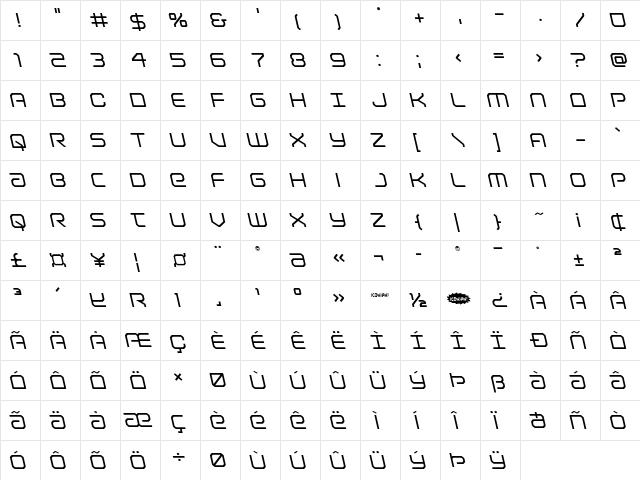
Light Brigade Leftalic Italic Font Preview
Design Context for Light Brigade Leftalic Typeface
Light Brigade Leftalic is a composed and adaptable typeface that performs quietly and consistently across a wide range of design contexts. Its italic angle brings a sense of urgency and motion to the letterforms. Its slender proportions lend an understated elegance to any composition.
Pro Tip: Try Light Brigade Leftalic for annotation and caption copy alongside an upright companion — the contrast in angle creates a dynamic but ordered typographic system.